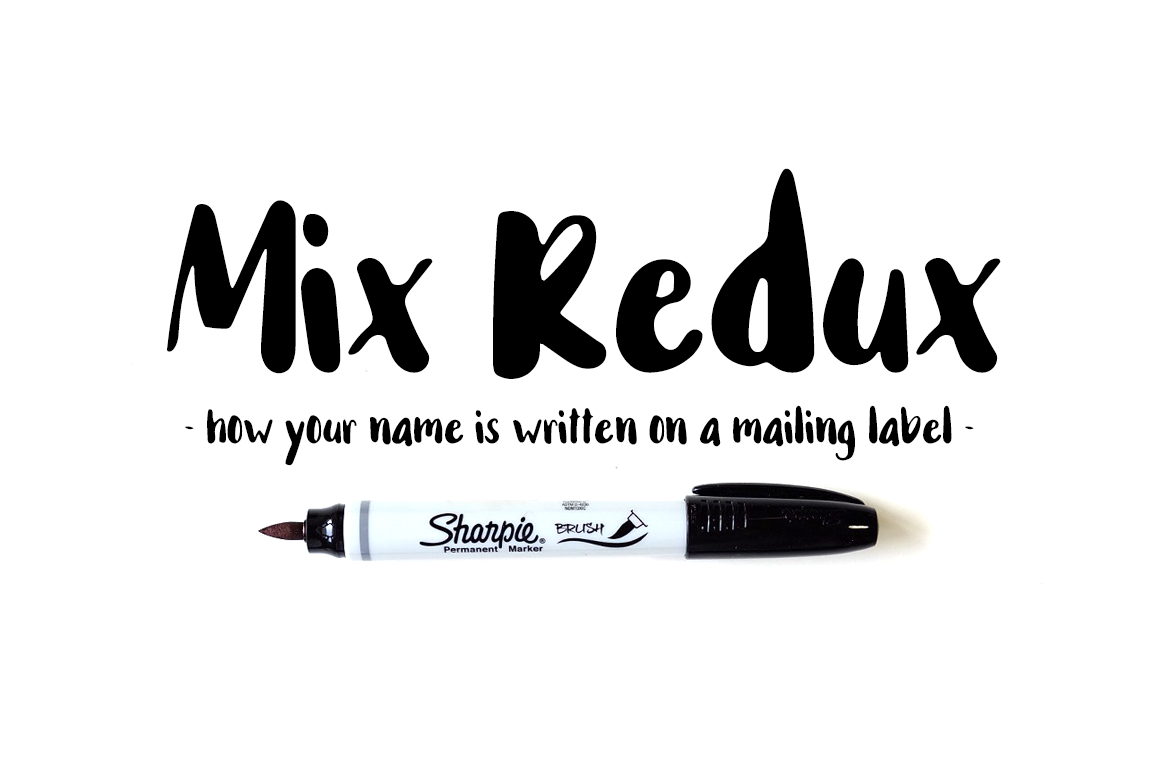
Redux - your name on a mailing label
Mix Redux
Mix Redux is a clean and stylish handwritten font with a DIY aesthetic. Digitized from glyphs handwritten with a Sharpie brush pen, this font is perfect for handmade and craft-themed projects. With multilingual support and extended alphabet and accented characters, Mix Redux is versatile enough to be used in a wide range of design projects. From ink to pixel , this font brings a touch of handmade charm to any project.